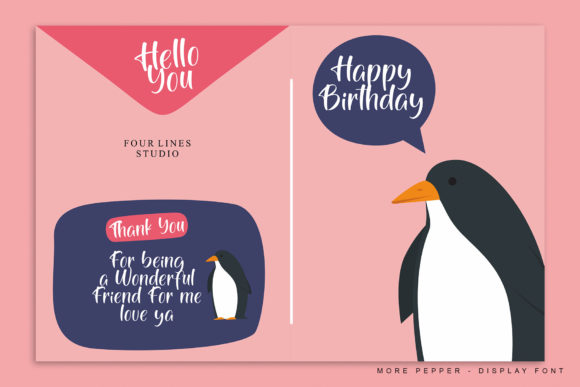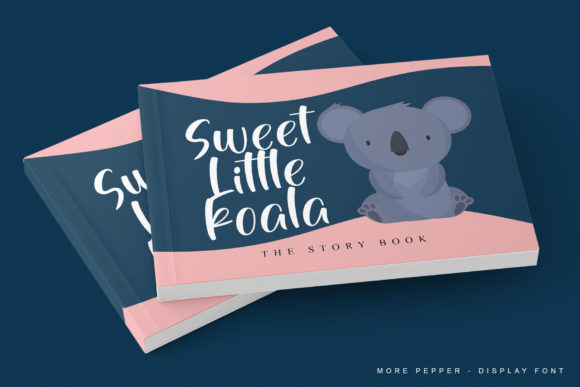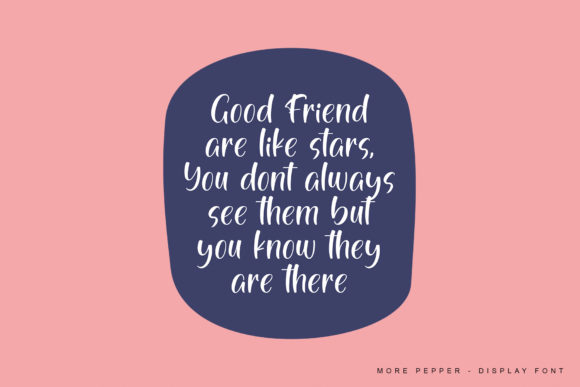
Introduction to More Pepper Font
More Pepper is a lovely and delicate script font that exudes elegance and class.
This font was particularly crafted for those who need a beautiful and refreshing look to their designs .
More Pepper Font offers exceptional quality and versatility, making it a valuable addition to your design toolkit. Whether you’re creating for personal projects or commercial use, More Pepper Font delivers professional results.